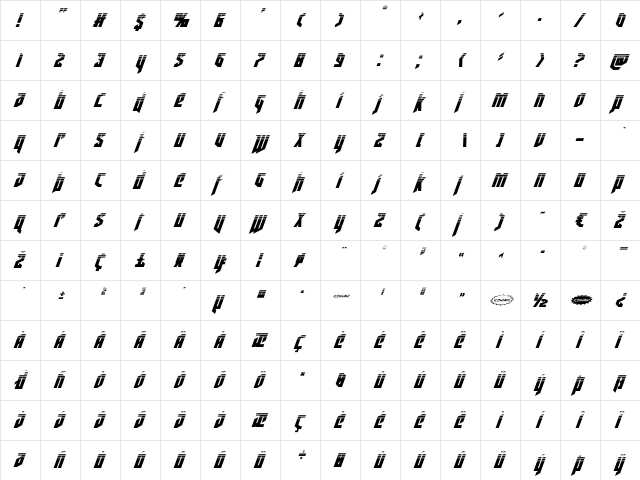
Deathshead Halftone Italic Italic
Design Context for Deathshead Halftone Italic Typeface
Deathshead Halftone Italic leans into the macabre with letterforms designed to disturb and intrigue in equal measure. The dynamic lean of this cut emphasises speed and emphasis in any layout.
Ideal for Halloween projects, horror film titles, haunted house signage, and dark editorial design.
Font Pairing: Pair with a clean neutral sans-serif for body copy to let Deathshead Halftone Italic's character lead without overwhelming the composition.
Pro Tip: Deathshead Halftone Italic works best as a headline or focal element. Pair it against plain, neutral body text to amplify the contrast.